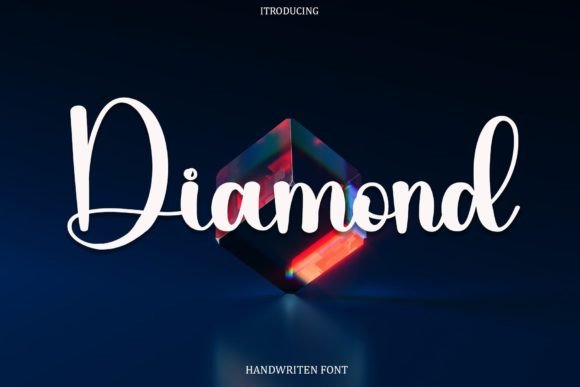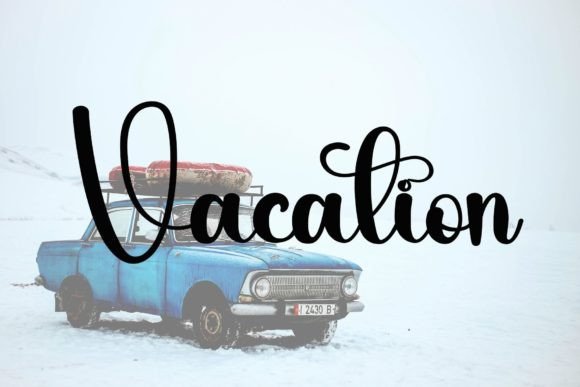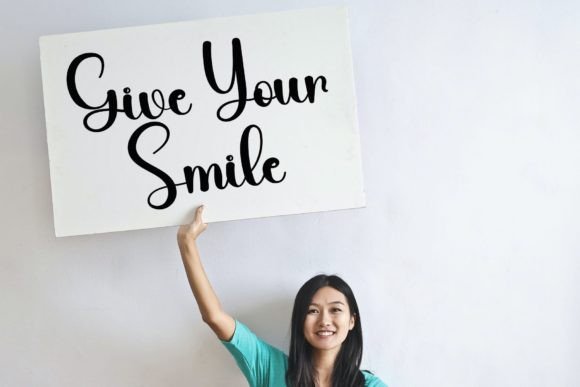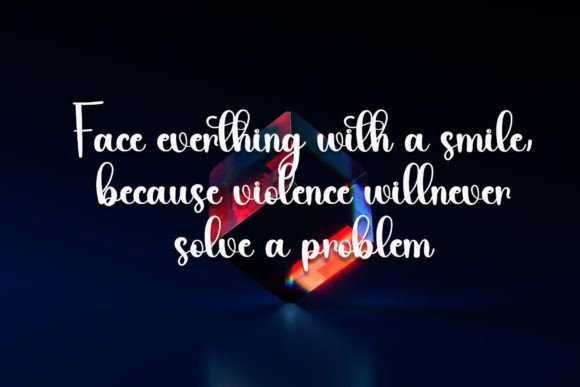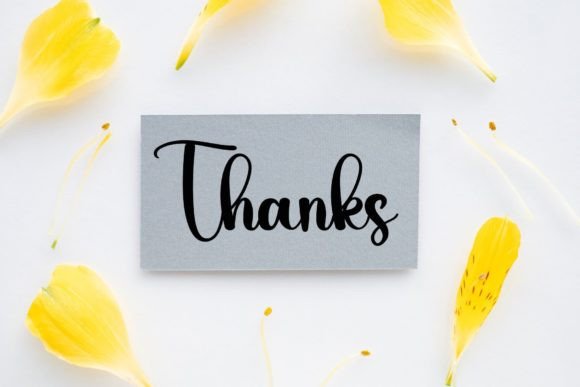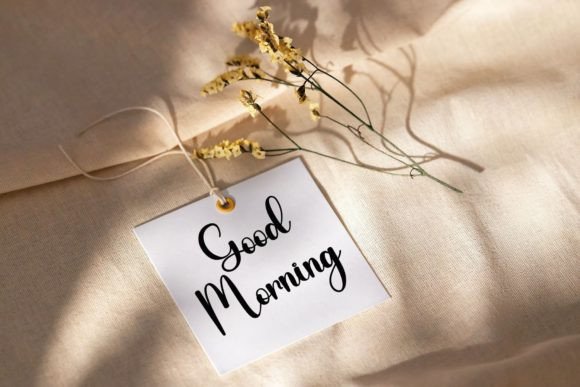
Diamond Font
Diamond is an exquisite masterpiece in the world of fonts, offering a delicate and well-rounded handwritten style that adds a touch of authenticity to any project. Its elegant curves and smooth lines make it a perfect choice for crafty endeavors that require a genuine and charming typography. This font is a true gem, ideal for a variety of creative applications, including but not limited to wedding invitations, birthday cards, personal branding, and elegant logos.
One of Diamond’s standout features is its ability to convey a sense of craftsmanship and artistry. Each letter is meticulously crafted, capturing the essence of handwritten calligraphy. Whether you’re designing a romantic wedding invitation or a heartfelt birthday card, Diamond’s intricate details add a layer of sophistication and charm to your creations. Its timeless appeal ensures that your designs have a classic and enduring quality, making them memorable for years to come.
Wedding invitations, in particular, benefit greatly from Diamond’s graceful demeanor. The font’s elegant strokes and graceful curves set the perfect tone for a romantic celebration of love. It evokes a sense of intimacy and personal touch, making your invitations feel truly special and unique. The font’s versatility allows you to explore various design possibilities, ensuring that your wedding stationery reflects the couple’s personality and style.
Birthday cards designed with Diamond become more than just pieces of paper; they become heartfelt expressions of love and celebration. The font’s handwritten charm adds warmth to your messages, making the recipient feel truly valued and appreciated. Whether you’re creating a playful card for a child’s birthday or a sophisticated one for an adult, Diamond adapts beautifully to the occasion, creating a memorable experience for the recipient.
Personal branding and logos crafted with Diamond exude sophistication and professionalism. The font’s authenticity and timeless elegance make it a powerful choice for individuals and businesses looking to make a lasting impression. Whether you’re a creative entrepreneur, a boutique business owner, or a freelancer, Diamond elevates your brand identity, showcasing your style and attention to detail.
In essence, Diamond is more than just a font; it’s a creative companion that transforms ordinary projects into extraordinary works of art. Its delicate and well-rounded design, coupled with its versatility and authenticity, makes it a valuable asset for designers and creators. So, indulge in the beauty of Diamond and let its authentic typography elevate your crafty projects to new heights, leaving a lasting impact on anyone who experiences them.